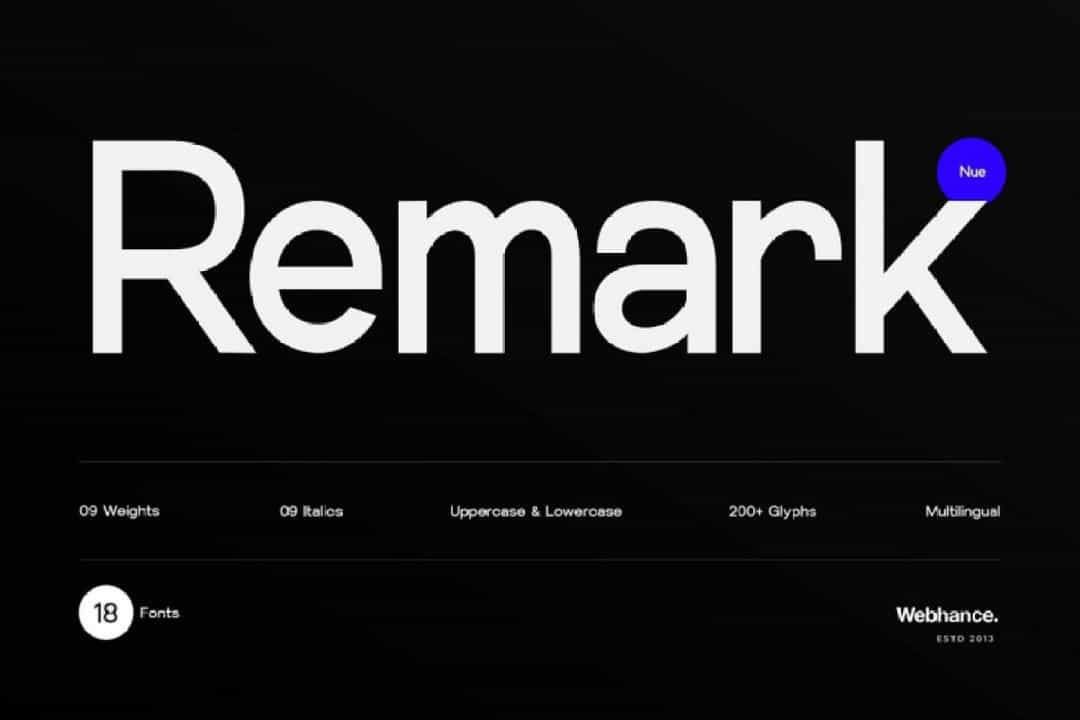
Remark Nue is a multifunctional sans-serif font family that is created to enrich your design projects with its contemporary and sophisticated look. Nine carefully designed weights with the Thin on one end and the Heavy on the other, their italics are as versatile as the regular weights, giving you a total of 18 fonts to work with.